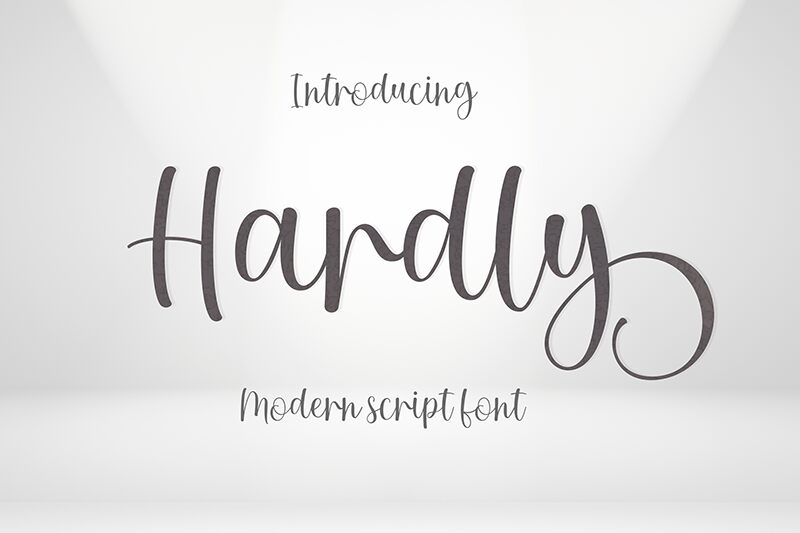
Hardly
Hardly font, crafted by Amarlettering - Takiy, embodies the essence of spontaneity and warmth characteristic of handwritten styles. Its graceful curves and charming loops evoke a sense of authenticity, making it ideal for personal projects or branding that seeks to foster connection. The font presents a delightful balance between playfulness and elegance, with its striking forms often drawing the eye.
Perfectly suited for invitations, artisan crafts, or online content where personality shines through, Hardly’s unique character adds an inviting touch. This handwritten style seamlessly integrates with designs that prioritize a human touch while standing out in both print and digital mediums. Embrace Hardly for your creative endeavors to convey an engaging and friendly narrative that resonates deeply with your audience.